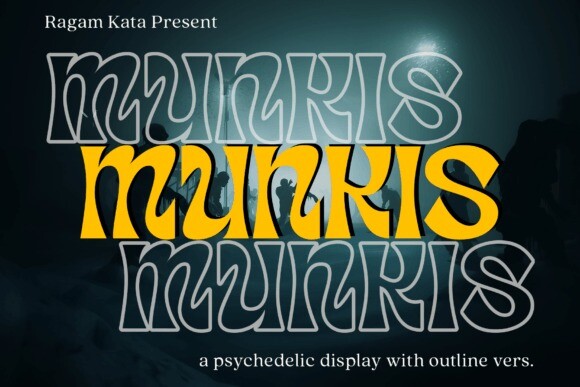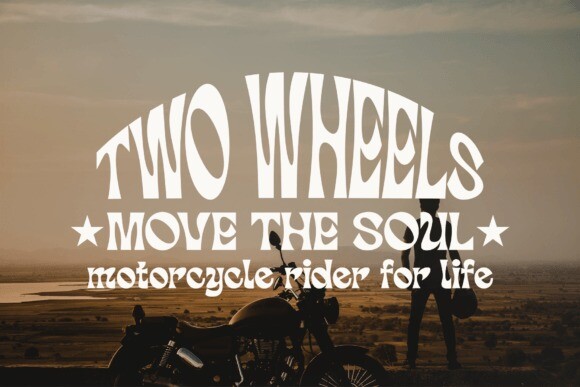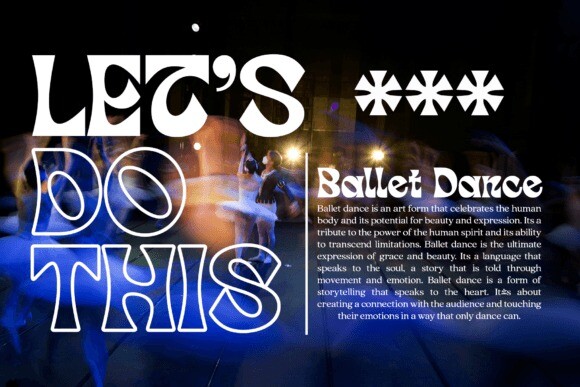
Munkis Font
Munkis Font is a retro-themed serif font that offers a unique and attractive look to the letters. With a distinctly vintage touch, Munkis evokes a unique character and style, perfect for attention-grabbing design projects.
Munkis come in two versions, namely regular and outline, which provide flexibility and variety in its use. The outline version on Munkis gives dimension and depth to the letters, adding a creative and modern touch to your designs.
Munkis is the perfect choice for a design project that wants to bring a fun and creative retro feel to it. Suitable for logos, brand identity, posters, packaging, and various other design media. With Munkis, you will get a serif font with a unique and attractive appearance, as well as the flexibility to use the outline version to create a more dynamic and modern design.
Add Munkis to your font collection and bring a different, eye-catching retro touch to any of your design projectsThis font is PUA encoded which means you can access all of the amazing glyphs and ligatures with ease!